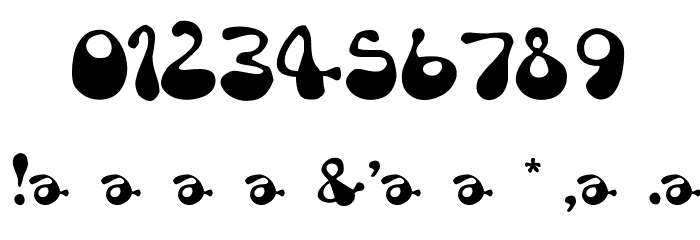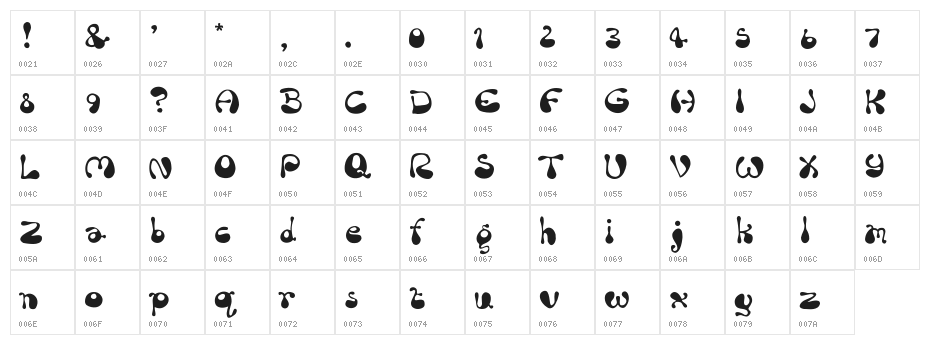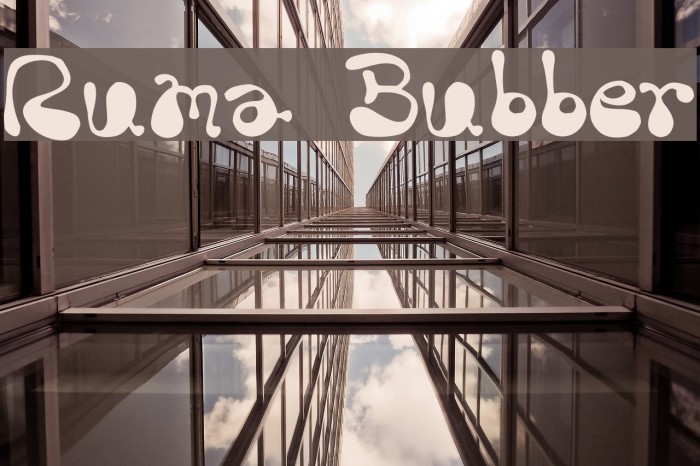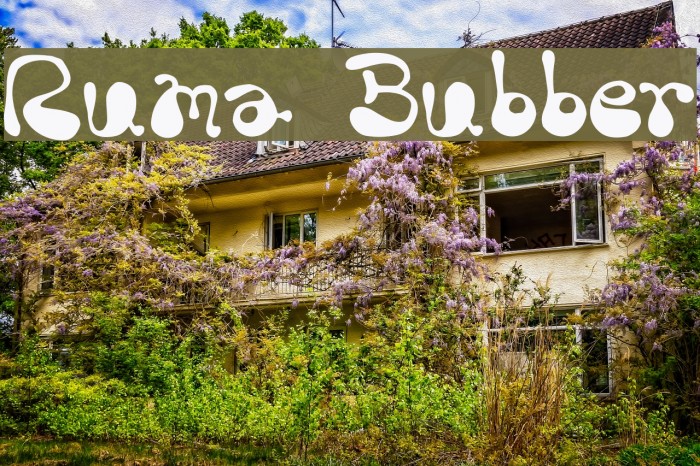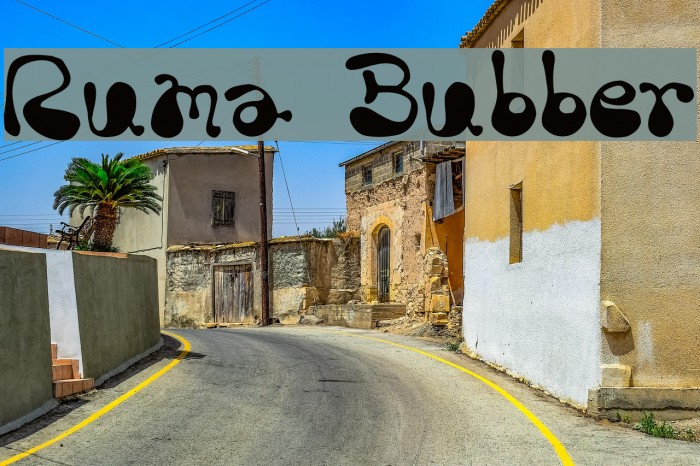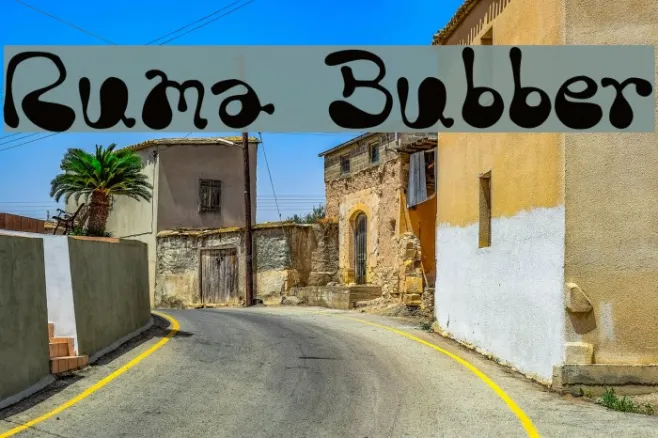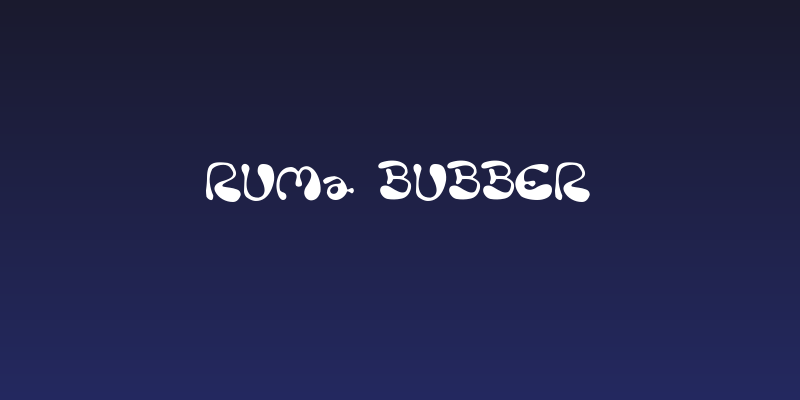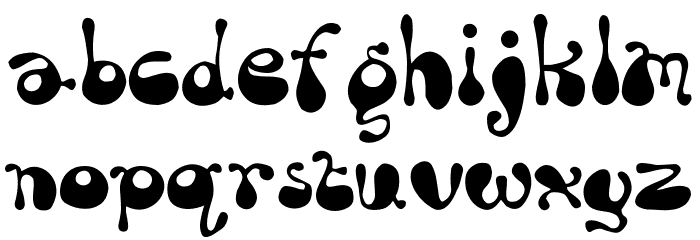
Rum-Bubber Font
Rum-Bubber Description
This font features a playful and whimsical design with bold, rounded characters that have a bubbly appearance. The letters are characterized by their thick strokes and unique, organic shapes, giving them a lively and dynamic feel. The uppercase and lowercase letters maintain a consistent style, with exaggerated curves and loops that add to the font's charm. Numbers and special characters follow the same design principles, ensuring a cohesive look across all elements. The font's distinctive style makes it stand out, making it ideal for projects that require a fun and eye-catching typeface.